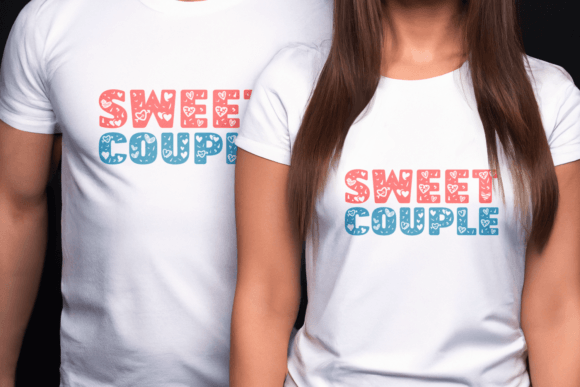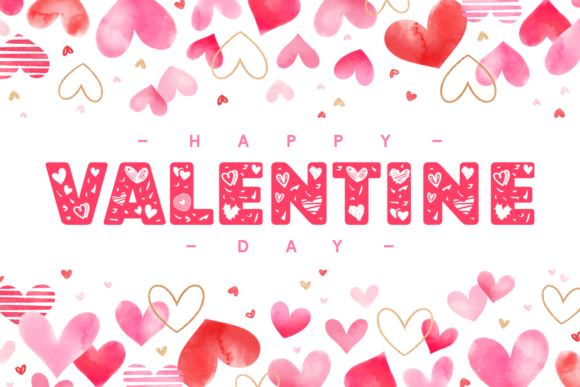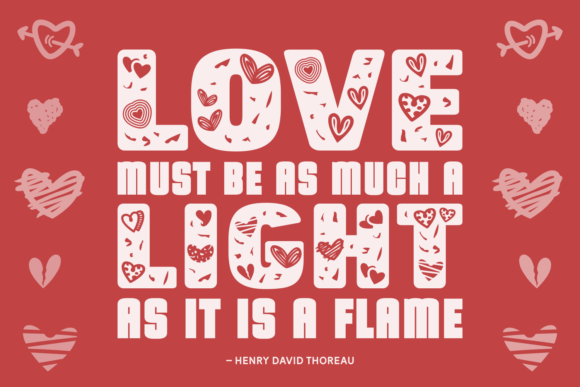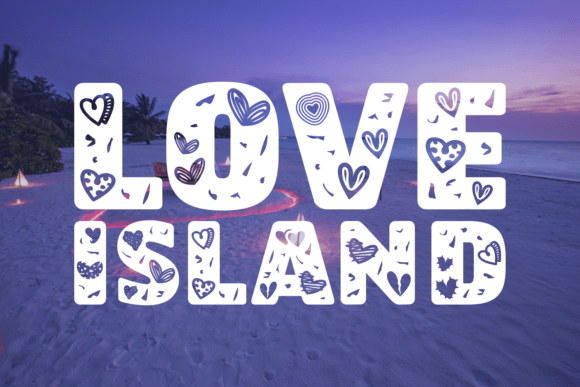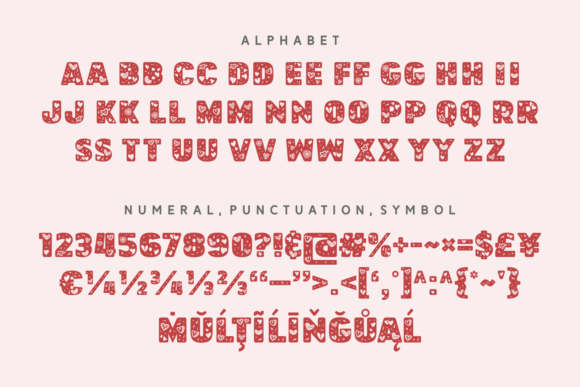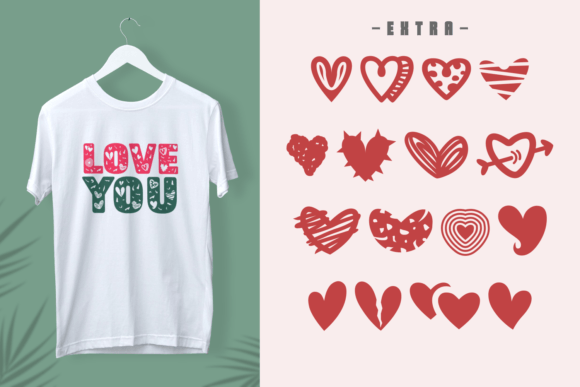
Introduction to Loved Ones Font
Loved Ones is the cutest decorative font, specially designed for Valentine’s Day.
Add it to your most romantic designs, and you will notice how they become even more impressive .